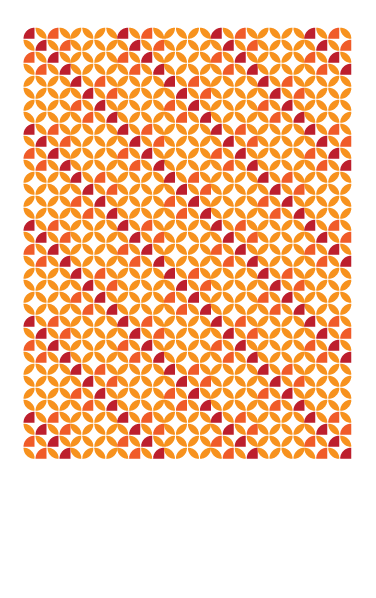
Symmetric patterns difying legibility. Each l/c letter consists of two different bricks in a square copied diagonally. The u/c are the same as the lower case but copied into four (making a fifth in the middle).
I like fonts that defy legibility. They are pure design magic, and once one's eye is catched, without considering the meaning they carry, i'm confident he'll take time to decipher the text. As people used to do with the psychedelic rock posters of the 60's and 70's.
Well deserving of the pink dot and the tasty afrojet sample. You could four-up the numerals in whatever characters the shift+number keys pull up for even more easy tiling fun. Bring on the fontstruct wrapping paper, limited edition posters, and laser-etched leather-bound moleskine covers!
FontStruct gift wrap! Great idea will.i.ૐ. This FontStruction would be great for that. I'm thinking that a FontStruct image gallery is quickly rising to the top of my feature request wishlist. Perhaps another option under the 'Gallery' tab.
@afrojet: It is a product of play, and it is meant to be played with.